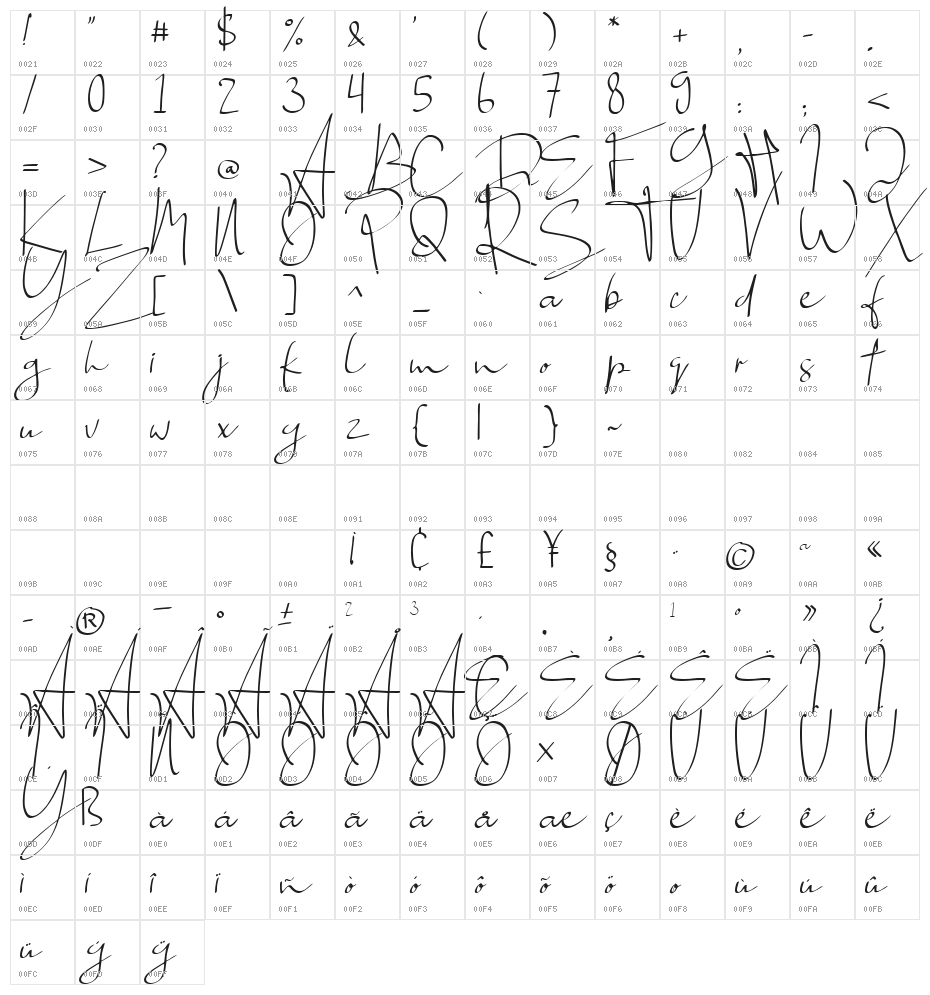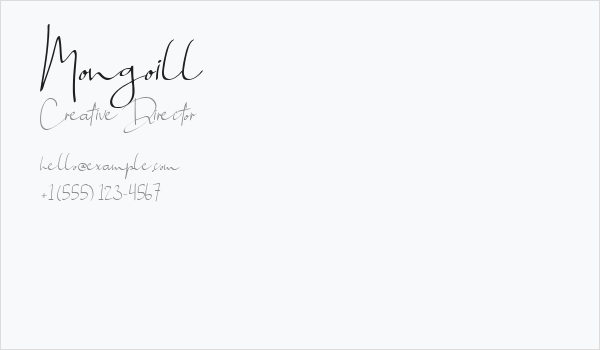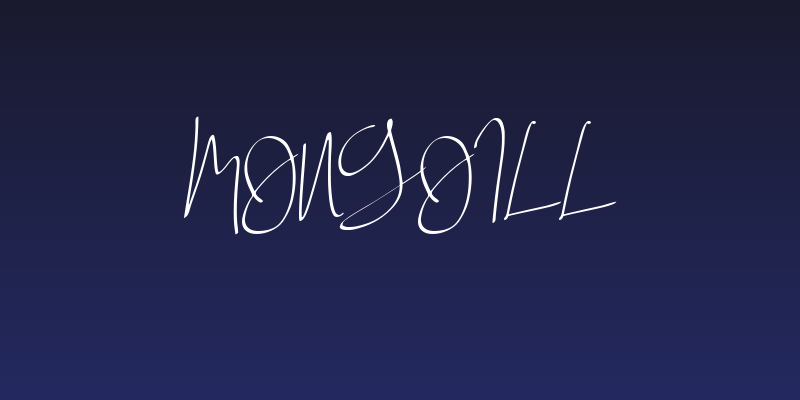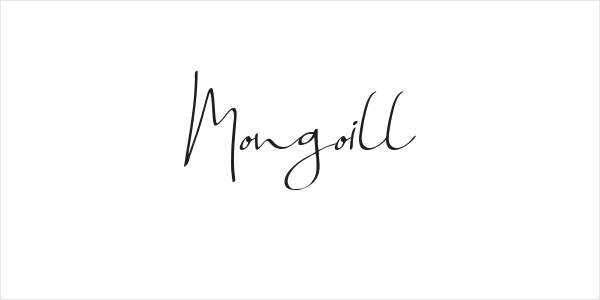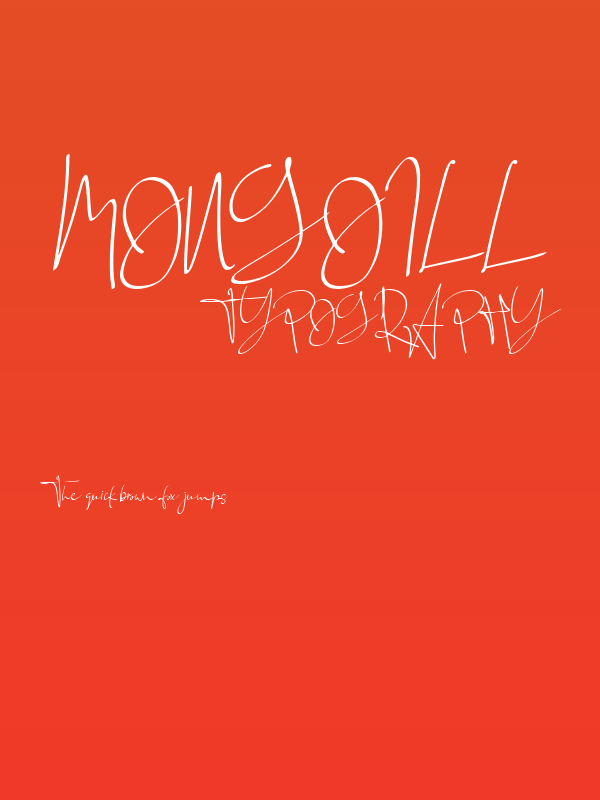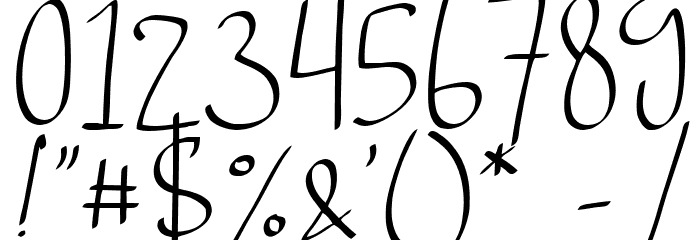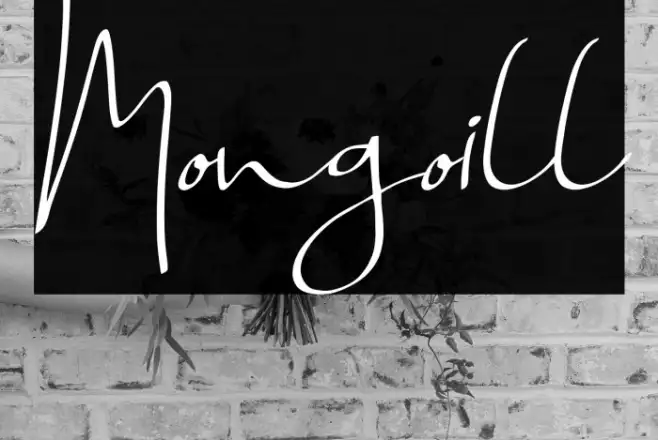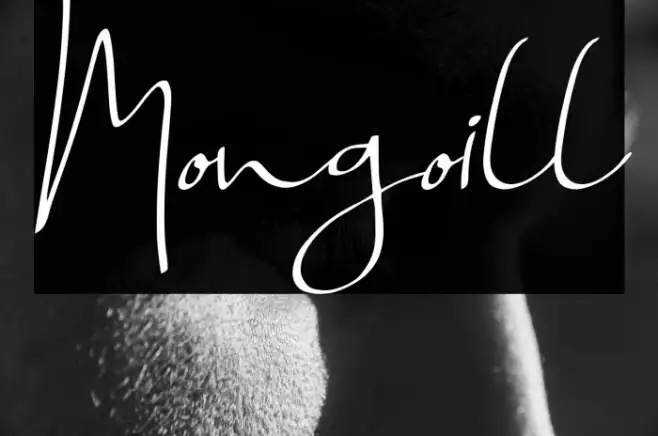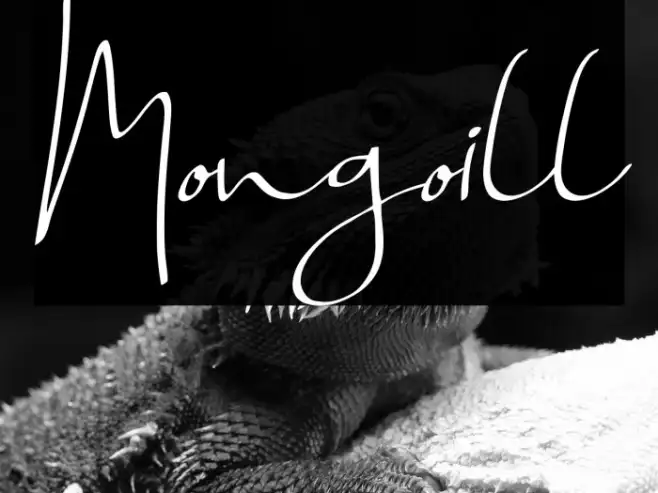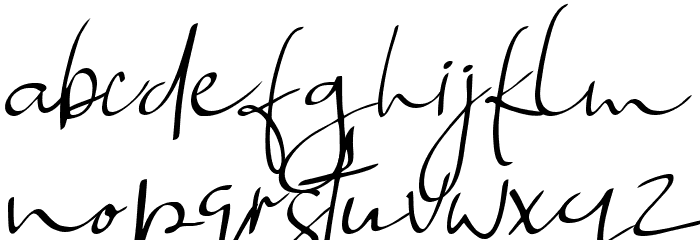
Mongoill Font
Mongoill Description
This font exhibits a dynamic and expressive handwritten style, characterized by its fluid and cursive strokes. The uppercase letters are tall and slightly slanted, giving a sense of movement and elegance. The lowercase letters maintain a consistent flow, with some letters featuring loops and swirls that enhance the handwritten aesthetic. The numerals are clear and legible, maintaining the same fluidity as the letters. Special characters are creatively integrated, matching the overall style. This font's unique and artistic appearance makes it suitable for creative projects that require a personal touch.